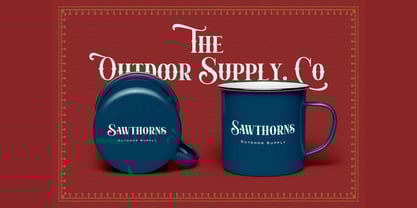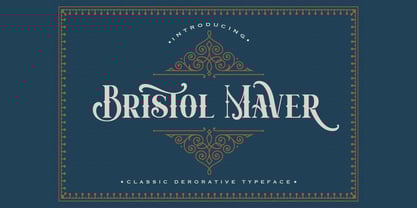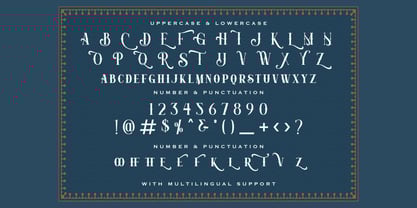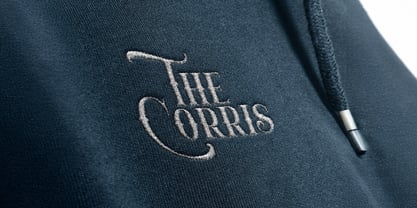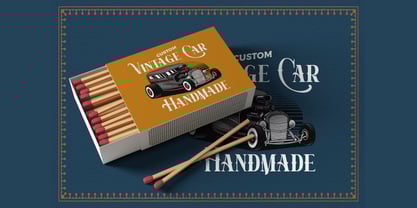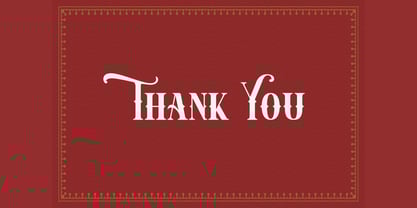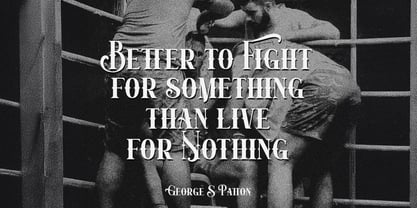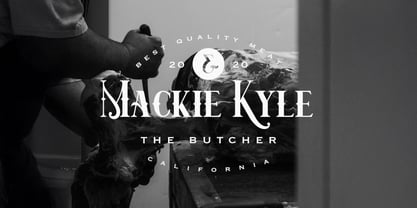
Bristol maver
por Stringlabs Creative Studio
La familia tipográfica Bristol maver fue diseñada por Virgiawan Listanto y publicada por Stringlabs Creative Studio. Bristol maver contiene 1 estilos.
Bristol Maver is a bold decorative font that combines modern flair with artistic detail. With its unique letterforms and eye-catching design, Bristol Maver is crafted to elevate your creative projects with a distinctive, stylish edge.
Diseñadores: Virgiawan Listanto
Editorial: Stringlabs Creative Studio
Fundición: Stringlabs Creative Studio